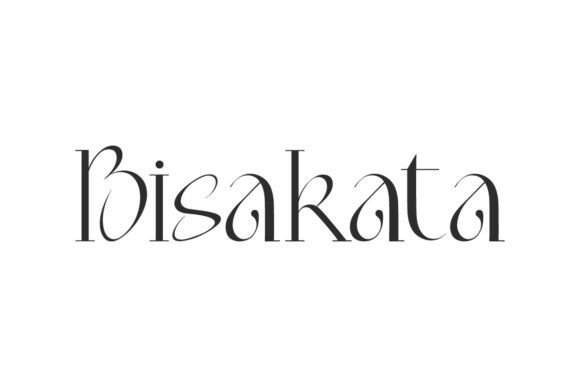
The Perfect Typographic Match
There’s something magical about finding the perfect font for a design project. It’s that moment when everything comes together, and you know you’ve made the right choice. For designers, this moment is often elusive, but with the right tools, it’s within reach. Meet the Bisakata Font, a sophisticated display serif font that embodies elegance and sophistication.
This beautiful typeface is designed to create a calm atmosphere, making it perfect for a wide range of designs, from apps and booklets to brand design and signage. With its seamless elegance, Bisakata Font is a valuable asset for designers looking to add a touch of class to their work. Whether you’re creating a modern logo or a poster, this font is sure to impress.
Bisakata Font Key Features
- Font Family: Bisakata is a unique and elegant font family designed specifically for digital use, making it perfect for web and mobile applications.
- Unique Characteristics: Bisakata features a distinctive and modern design, with subtle nuances that make it stand out from other font families.
Bisakata Font Review
I’ve had the chance to work with the Bisakata font, and here’s my honest take on it.
- Unique Aesthetic: The Bisakata font has a distinct, modern feel that sets it apart from other fonts. Its rounded edges and geometric shapes give it a unique charm.
- Legibility: Despite its unconventional design, the Bisakata font is surprisingly easy to read, even at smaller font sizes.
- Limited Character Set: The Bisakata font has a limited character set, which may not be ideal for projects that require a wide range of characters, such as languages with non-Latin scripts.
- No Italic or Bold Variations: The Bisakata font is only available in its standard weight, which can be limiting for projects that require italic or bold text.
Overall, the Bisakata font is a great choice for projects that require a unique, modern aesthetic. However, its limitations may make it less suitable for projects with complex character requirements or those that need italic or bold text.
Tips for Getting the Most Out of Bisakata Font
To get the most out of the Bisakata font, try pairing it with simple backgrounds and bold colors to create a striking visual effect.
Use the Bisakata font for headings and titles to add a touch of elegance to your designs.
The Bisakata font is ideal for:
Book covers and publishing materials
Business cards and marketing materials